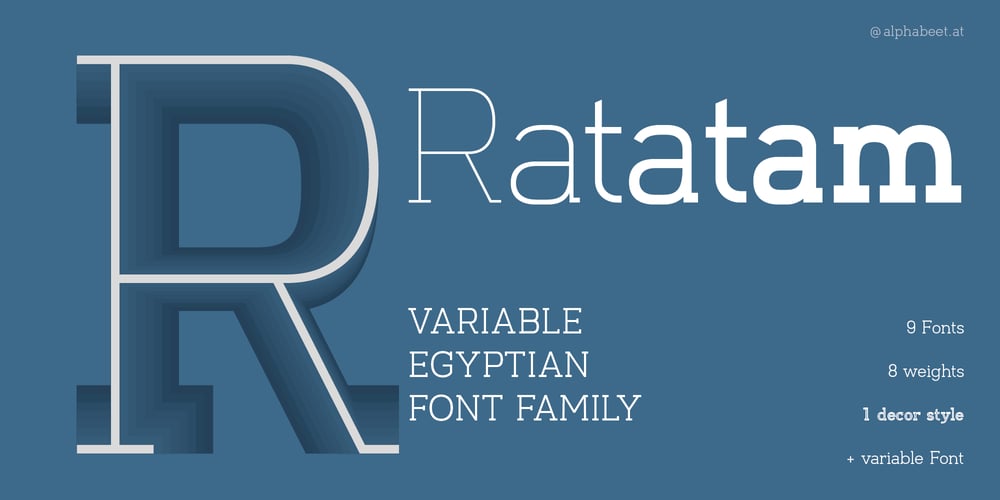
Ratatam Font Family was designed by Florian Kriegner and published by alphabeet.at. Ratatam contains 10 styles and family package options. Ratatam is a variable egyptian font face. There are eight weights from thin to black, but a lot more opportunities with the variable font, and a decor style with inner elements. Useful open type features, which are optional as well as contextual alternates and positions, are defined, all small caps integrated.